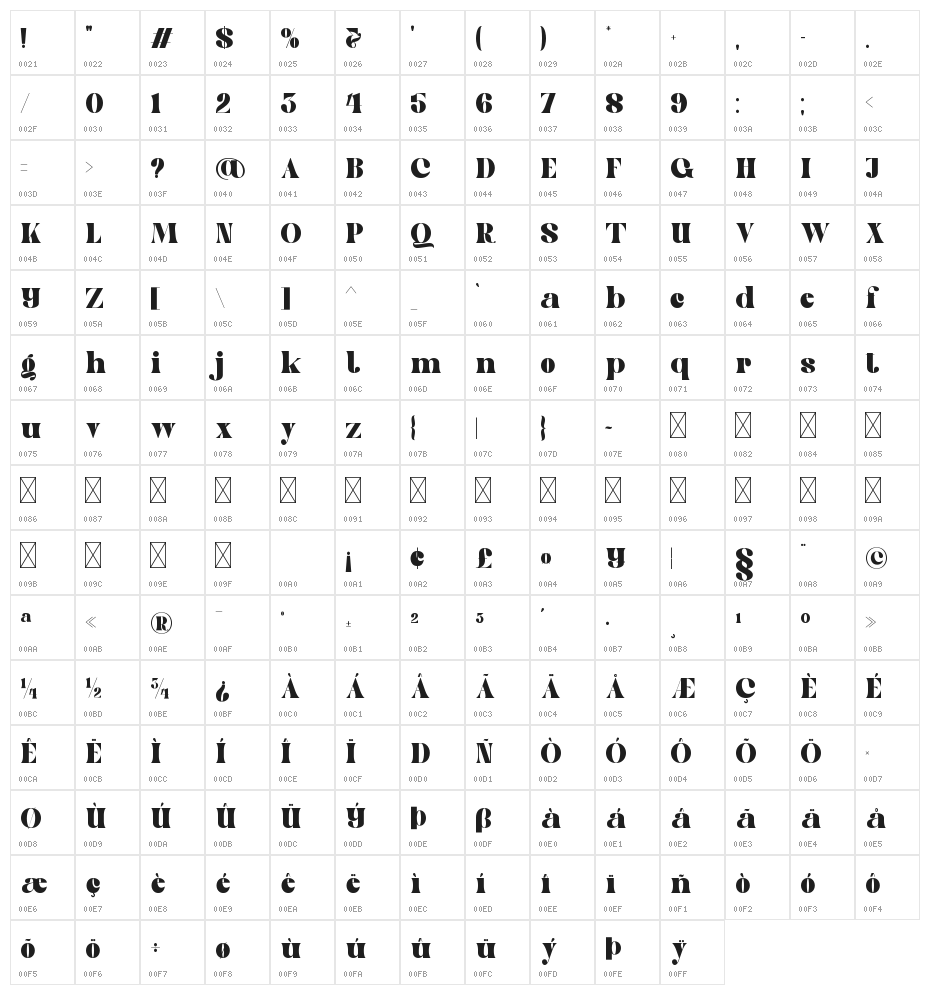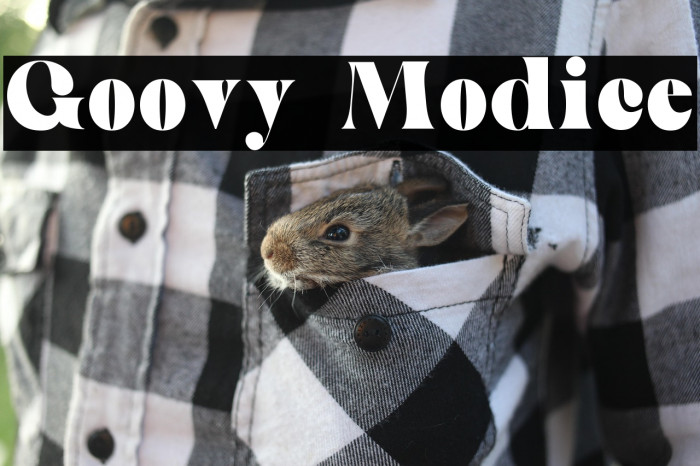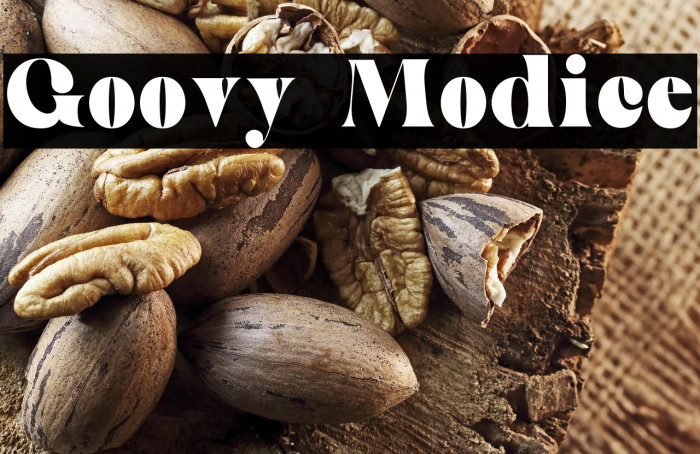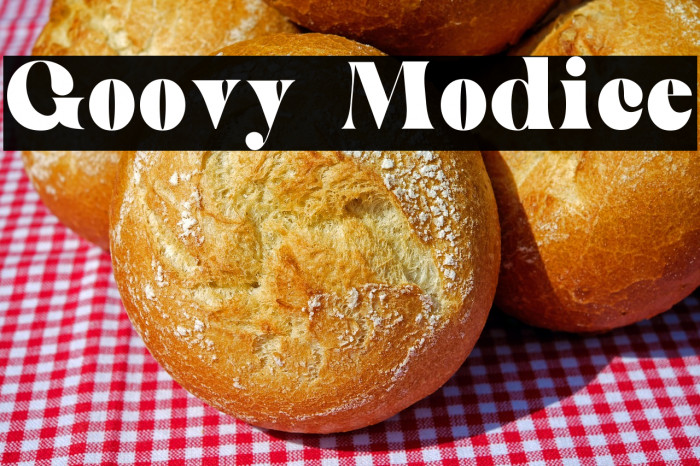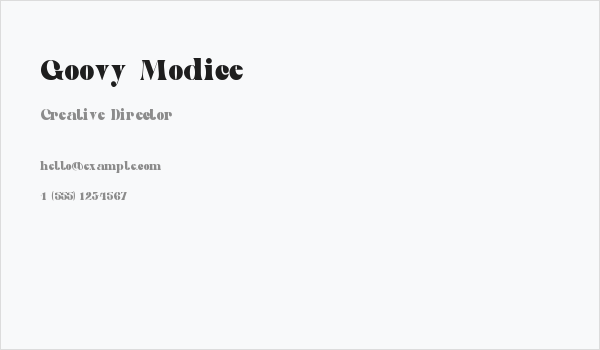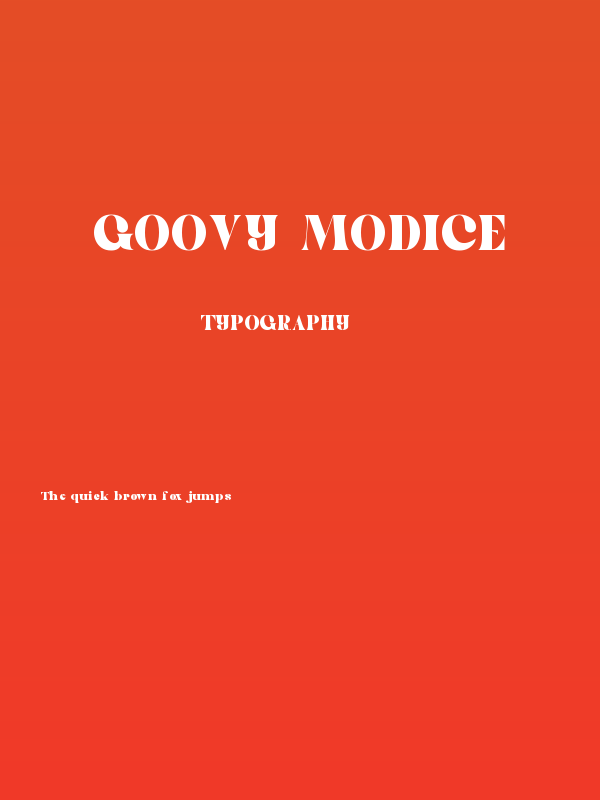
Goovy Modice Font
Goovy Modice Description
This font exhibits a bold and dynamic style with a distinct retro flair. The uppercase letters are characterized by thick, dramatic strokes and high contrast between thick and thin lines, creating a striking visual impact. The lowercase letters maintain this boldness, with some featuring unique flourishes that add a playful touch. The numerals are equally bold, ensuring consistency across all characters. Special characters are designed with the same attention to detail, making them stand out. Overall, this font combines elements of vintage and modern design, making it versatile for various creative applications.
| Overall Style | Vintage |
| Proposed Projects | Ideal for vintage-themed posters, branding, album covers, and editorial design. |